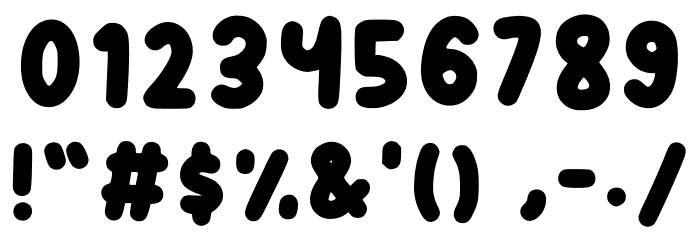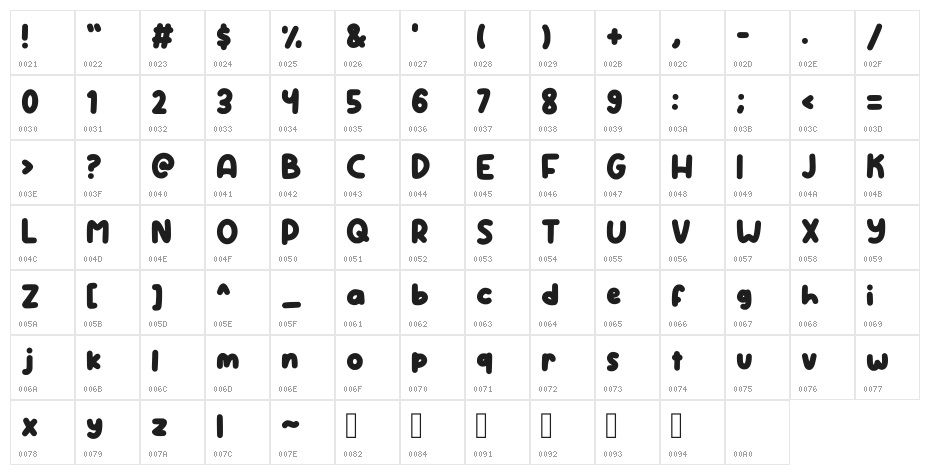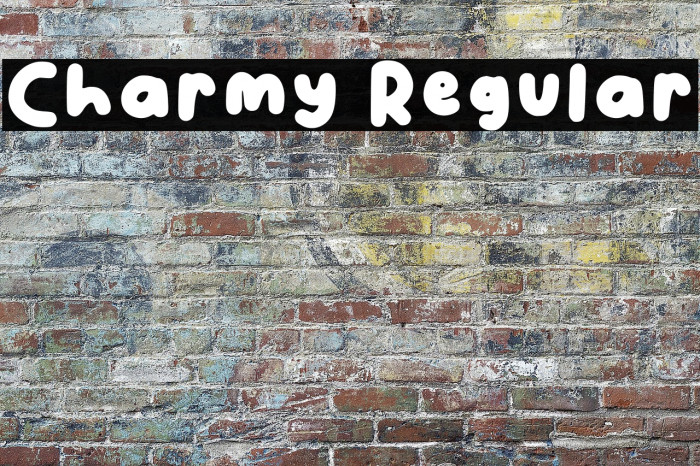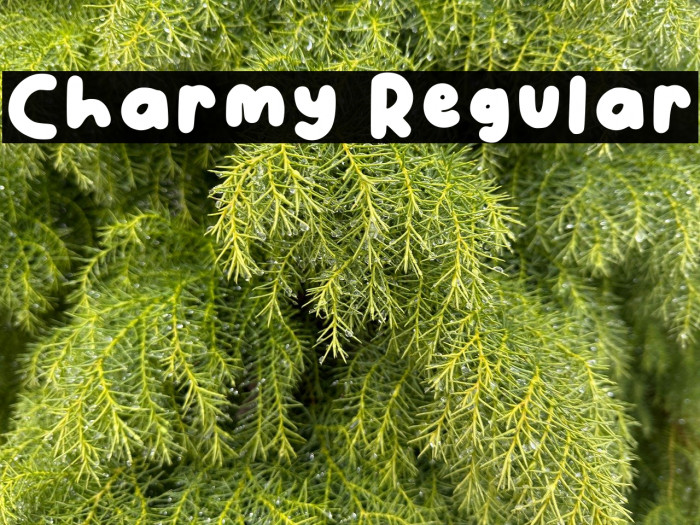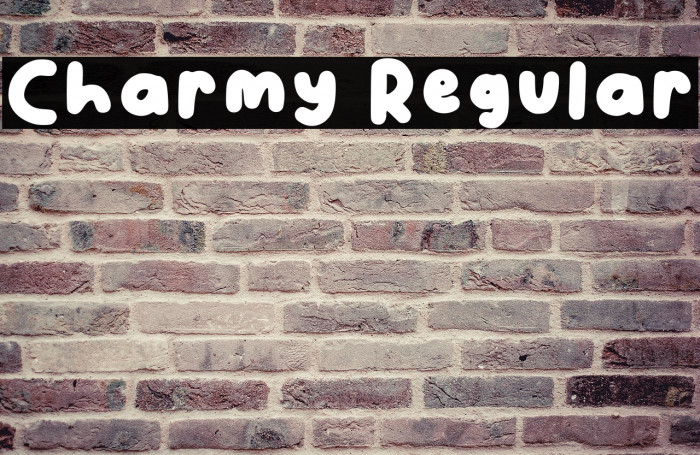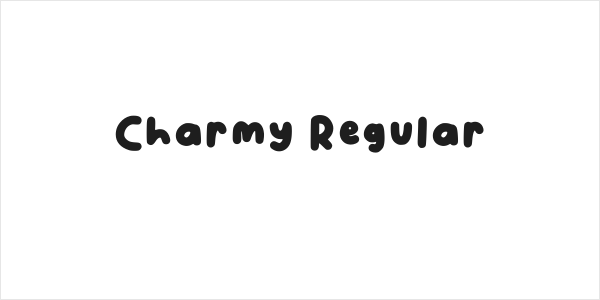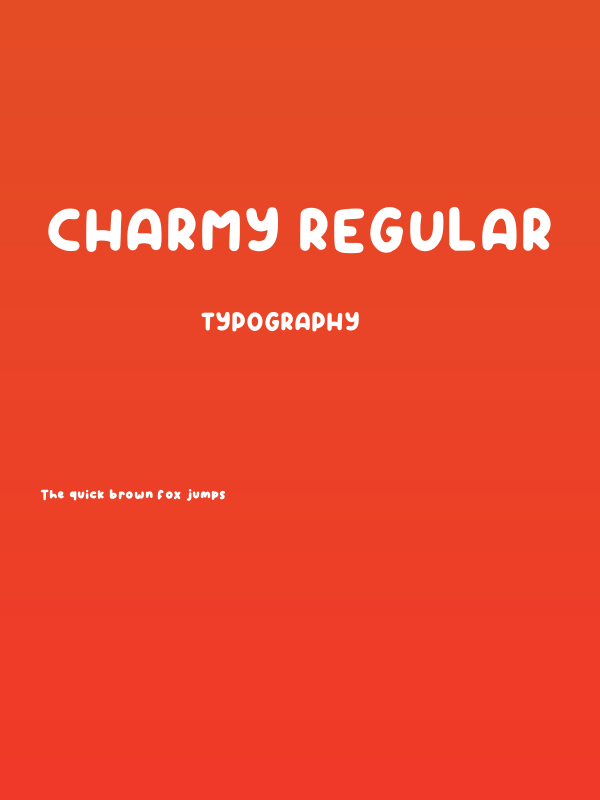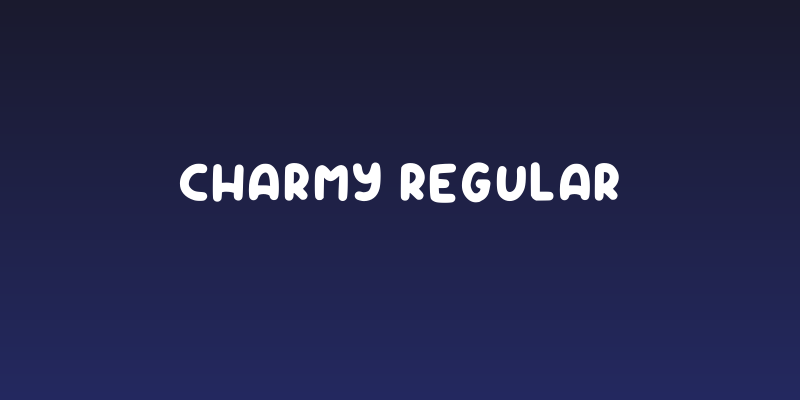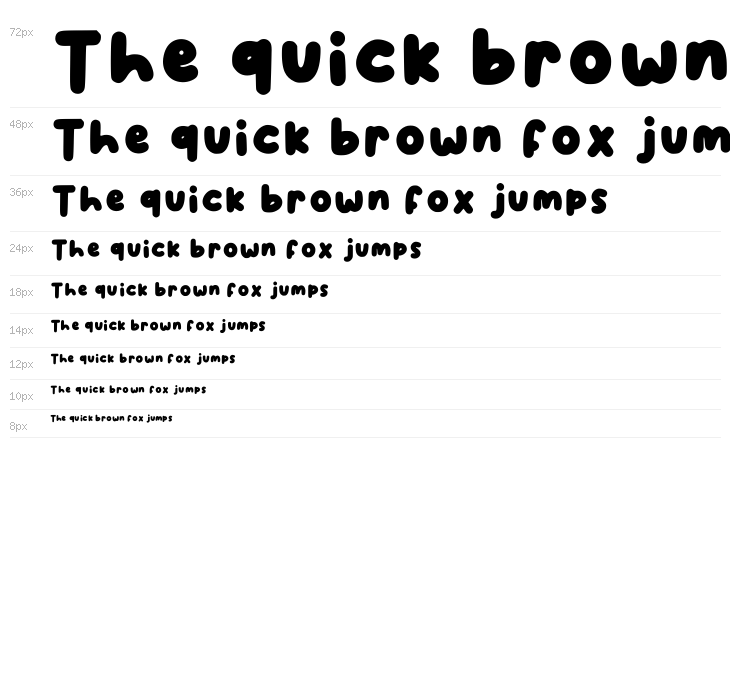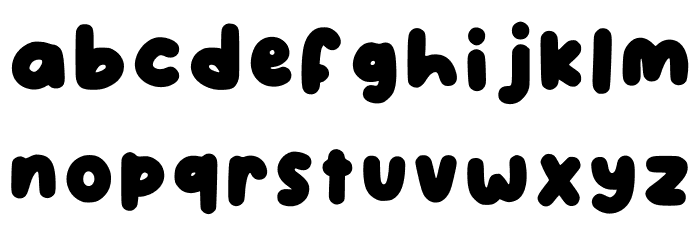
Charmy Regular Font
Charmy Regular Description
This playful and bold font features rounded, bubbly characters that convey a sense of fun and approachability. The letters are uniformly thick, with a consistent stroke width that gives the font a cohesive and solid appearance. The characters are slightly irregular, adding a whimsical touch that enhances its charm. This font is highly legible, with clear distinctions between each letter, making it suitable for various creative applications. The numbers and special characters maintain the same playful style, ensuring a harmonious look across all text elements.
| Proposed Projects | Ideal for children's books, playful branding, party invitations, and casual social media graphics. |